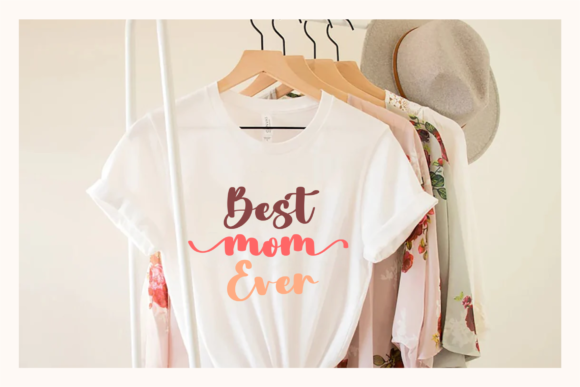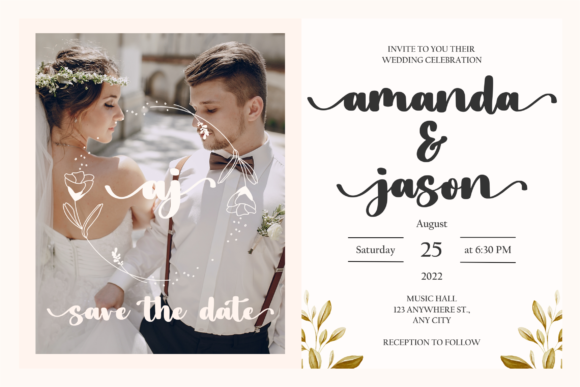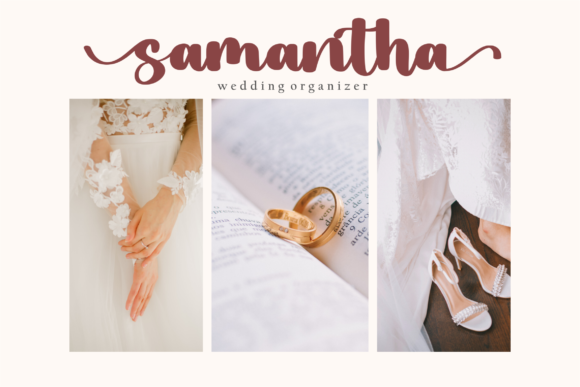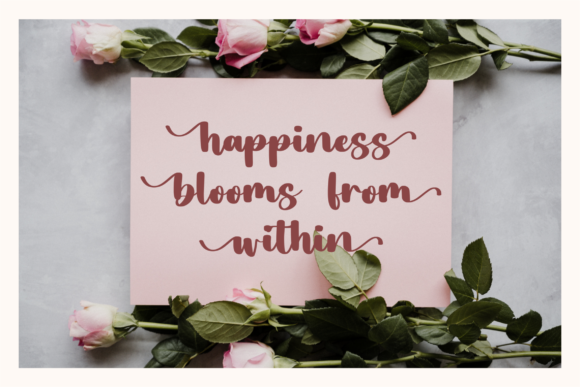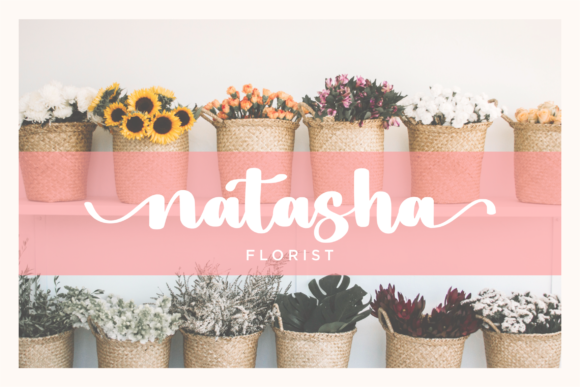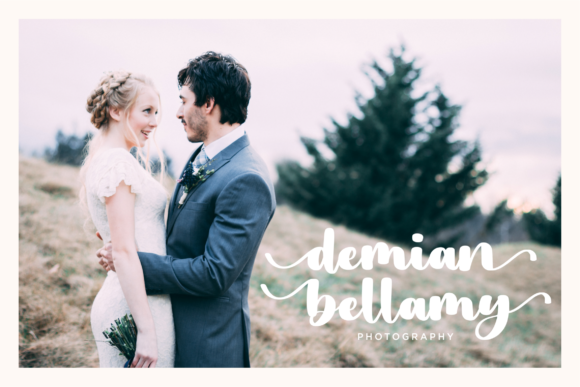
Discover the Magic of Ayuscript Font
Have you ever been stuck in a creative rut, trying to find the perfect font to bring your vision to life? We’ve all been there, staring at a blank page, searching for that elusive spark to set our imagination ablaze. But what if we told you that the answer lies in the elegant, flowing lines of a beautiful handwritten font?
Enter the Ayuscript Font, a true masterpiece that exudes a timeless charm and sophistication. Designed to add a personal touch to your favorite projects, this font is perfect for designers looking to create stunning visual effects. With its PUA encoded glyphs and ligatures, you’ll have access to a world of creative possibilities, all at your fingertips. Whether you’re a seasoned pro or just starting out, the Ayuscript Font is a valuable addition to any designer’s toolkit.
Ayuscript Font Key Features
- Unique Script Style: Ayuscript Font features a unique, modern script style with elegant connections between letters, making it ideal for creative and artistic applications such as invitations, posters, and branding materials.
- Language Support: The font supports a wide range of languages, including Latin, Cyrillic, and Greek scripts, making it a versatile choice for international applications.
- Customizable: Ayuscript Font is highly customizable, allowing users to adjust font weight, style, and size to suit their specific design needs.
- High-Quality Glyphs: The font features high-quality glyphs with precise letterforms and subtle flair, ensuring a professional and polished appearance in any application.
Ayuscript Font Review
I’ve had the chance to work with the Ayuscript font, and overall, it’s a solid choice for digital design. ✨ Here are some of its strengths:
- Unique style**: Ayuscript offers a distinctive, modern look that can add a touch of sophistication to your designs.
- Legibility**: The font is highly readable, even at smaller sizes, making it perfect for body text and smaller headlines.
- Comprehensive character set**: Ayuscript includes a wide range of languages and characters, making it a great option for multilingual projects.
However, there are some limitations to consider: ⚠️
- Limited font weights**: Ayuscript currently only offers a few font weights, which can make it less versatile for certain design projects.
- No italic or bold-italic variants**: The font lacks these essential styles, which can be a drawback for designers who prefer a more traditional approach.
- Not suitable for display text**: While Ayuscript is great for body text, it may not be the best choice for headlines or display text, as it can appear a bit plain.
Overall, I think Ayuscript is a great font for designers who want a clean, modern look without breaking the bank. However, it may not be the best fit for every project, and its limitations should be carefully considered before making a decision.
Tips for Getting the Most Out of Ayuscript Font
Use Ayuscript font for titles, headings, and emphasis to create a visually appealing design. Experiment with different font sizes and colors to add depth and hierarchy to your design.
Ayuscript font is ideal for:
- Creating modern and minimalist designs
- Designing business cards, brochures, and other marketing materials
- Adding a touch of elegance and sophistication to your designs Alternatives to Ayuscript Font